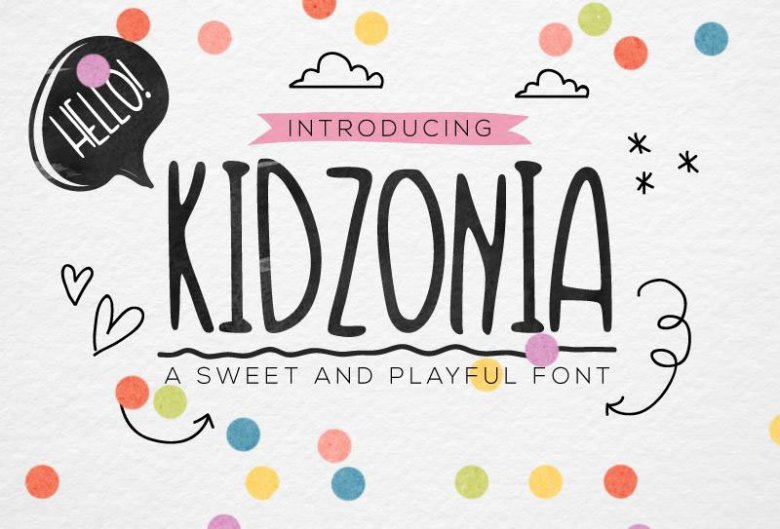
Kidzonia Font
You are implementing design projects? you’re looking for a free typeface to implement your design work, or you are looking for a new typeface collections. I want to introduce to you a fresh typography, youthful. Introducing Kidzonia Font! Kidzonia was designed and shares completely free by Shradha Katiyar. The romantic and beautiful feel create this theme. Kidzonia Font for awesome display, illustrations, posters, logos, t-shirts, titles, and much more..